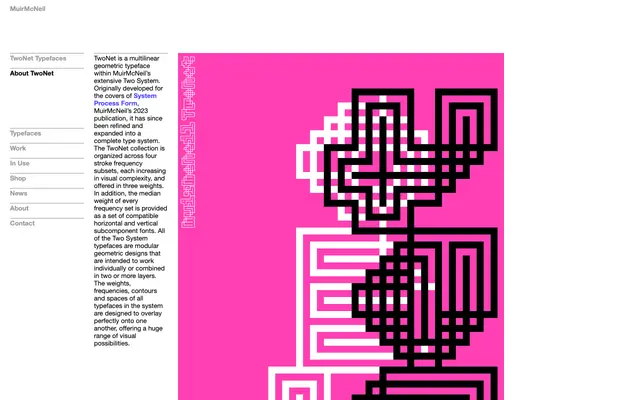
TwoNet
A multilinear geometric typeface built for layering, organised across four stroke-frequency subsets within MuirMcNeil's Two System.
Part of MuirMcNeil's wider Two System, TwoNet uses a modular geometric construction where weights, contours and spaces are calibrated to overlay precisely across fonts. Four stroke-frequency subsets increase in visual complexity, each available in three weights, with the median weight of every subset also supplied as split horizontal and vertical subcomponent fonts for granular compositional control. Originally created for the covers of MuirMcNeil's 2023 publication System Process Form, the family has since been refined into a standalone type system.
TwoNet is a multilinear geometric display typeface built on a modular system of overlapping strokes and subcomponents, designed for layering and visual complexity rather than extended text setting.